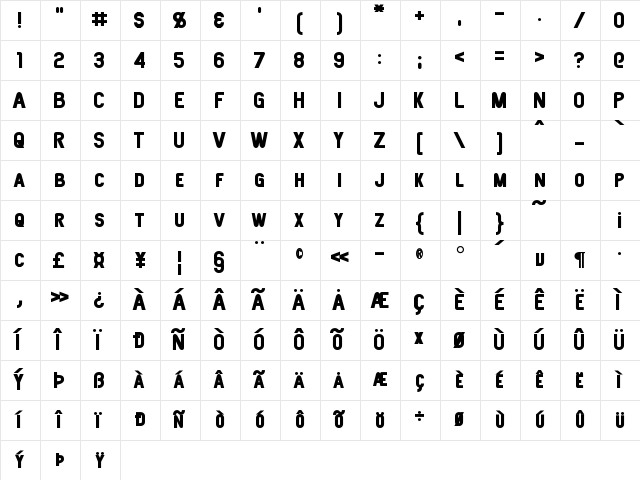
Joystick Bold Free Font
Joystick Bold
Foundry: Pixel Sagas
Designer: Neale Davidson
Design Context for Joystick
Joystick is a composed and adaptable typeface that performs quietly and consistently across a wide range of design contexts. Its bold stroke weight gives it real presence on the page.